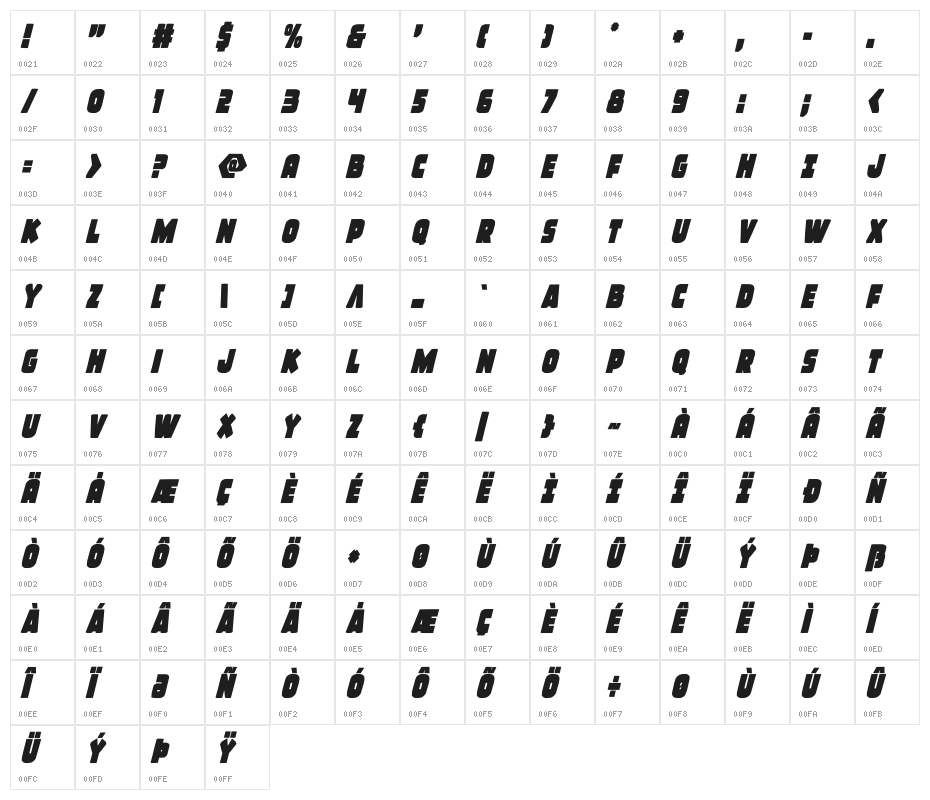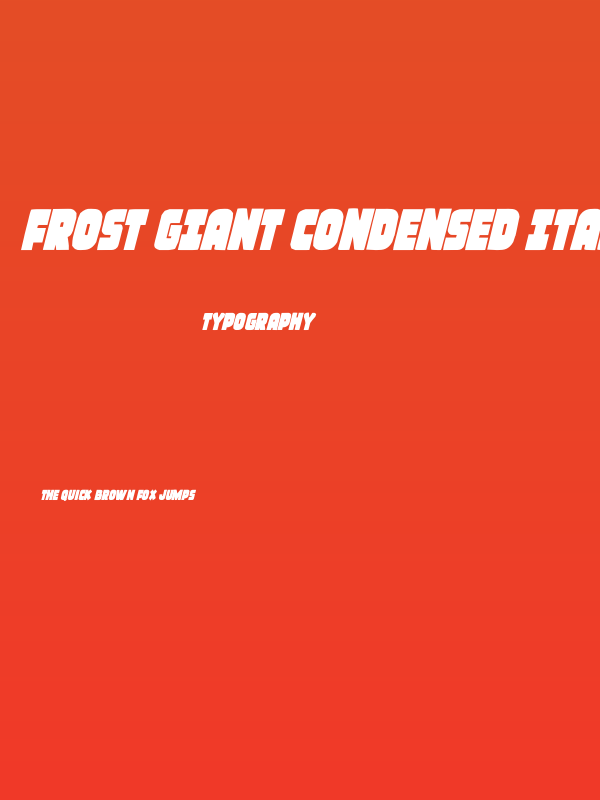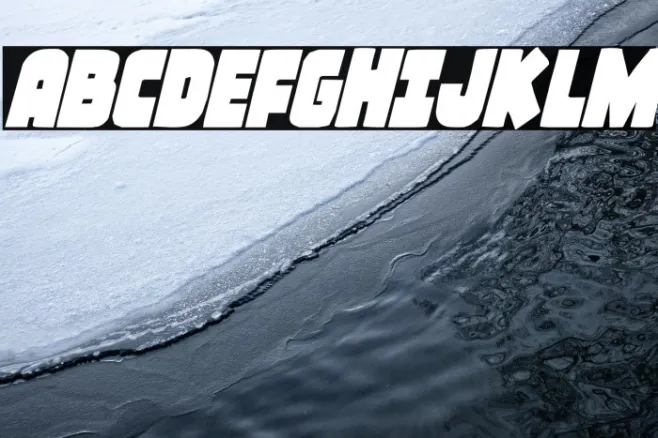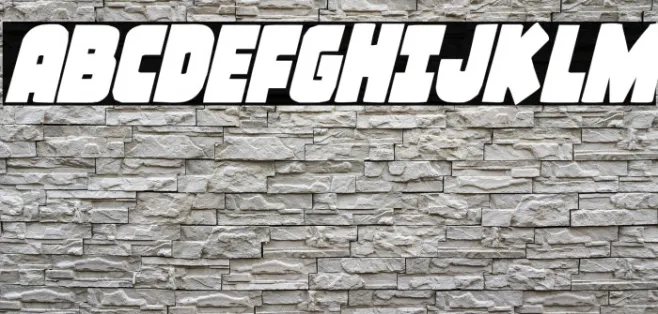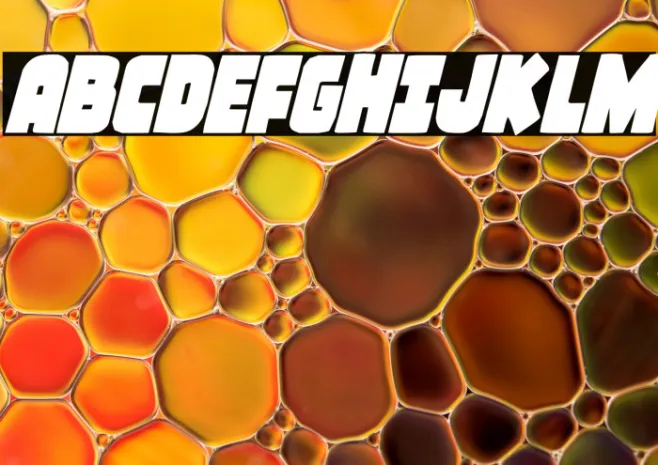
Frost Giant Condensed Italic Font
Frost Giant Condensed Italic Description
This font features a bold, condensed style with a strong italic slant, giving it a dynamic and impactful appearance. The characters are tightly spaced, enhancing its compact and powerful look. The strokes are thick and consistent, providing a high contrast that makes each letter stand out prominently. Its design is modern and assertive, suitable for making bold statements. The uppercase and lowercase letters maintain uniformity in style, while the numerals and special characters are crafted to match the overall aesthetic, ensuring a cohesive visual experience.
| Proposed Projects | Ideal for sports branding, action-themed posters, dynamic logos, and impactful headlines. |